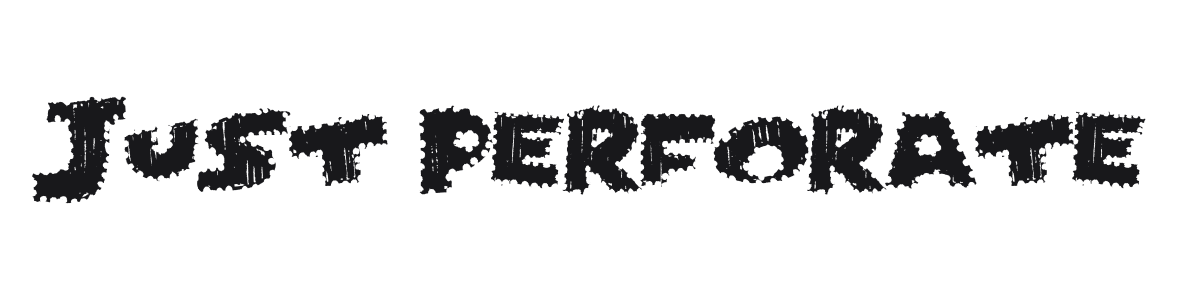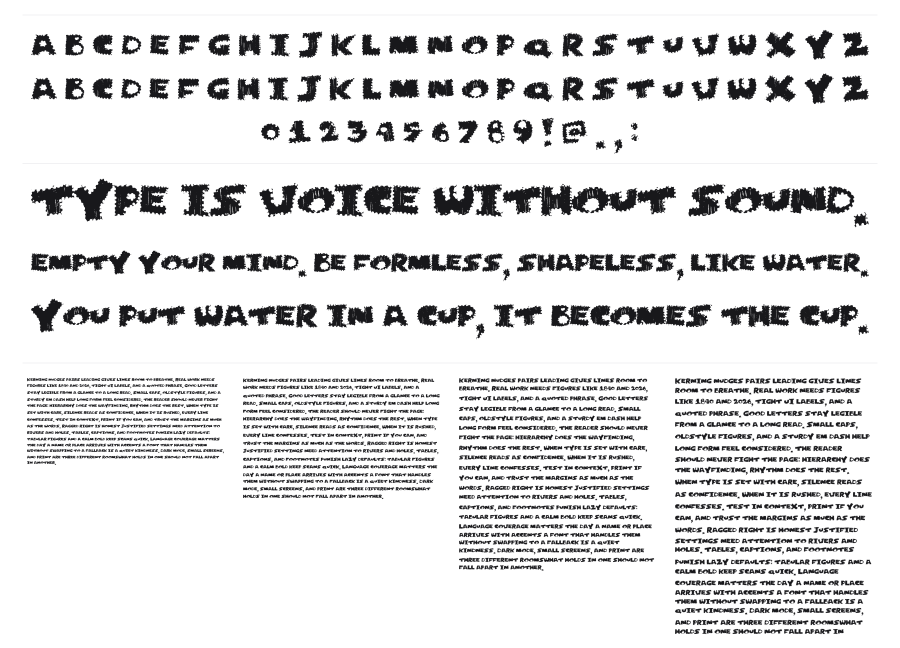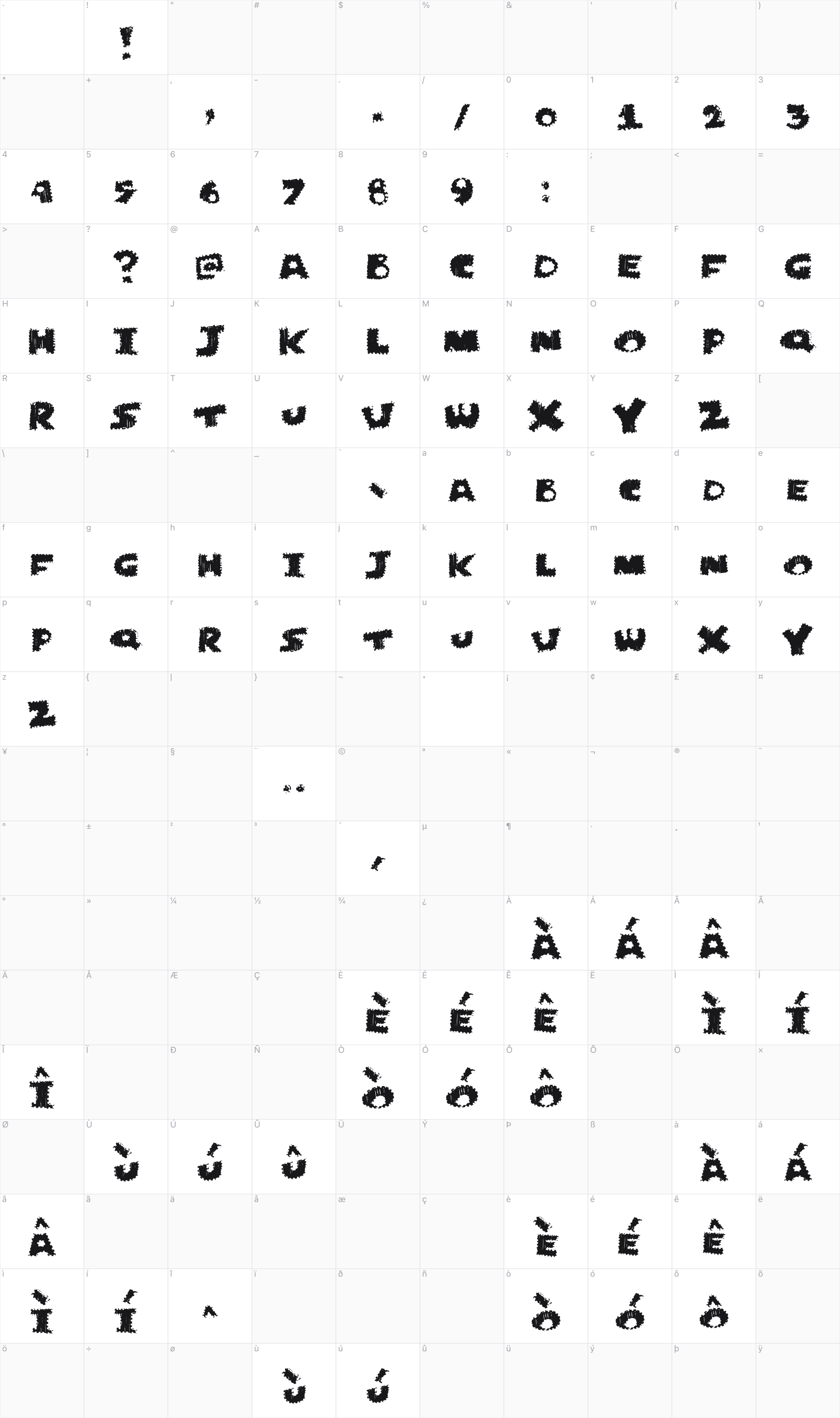
Just Perforate
Just Perforate is a heavily distressed display font from Xerographer Fonts with a bold, chunky base eaten away by jagged perforations and torn-edge erosion. The effect reads like text that has been corroded, chewed, or riddled with holes, giving it a raw, almost violent texture. It works at large sizes where the chaotic detail can breathe.